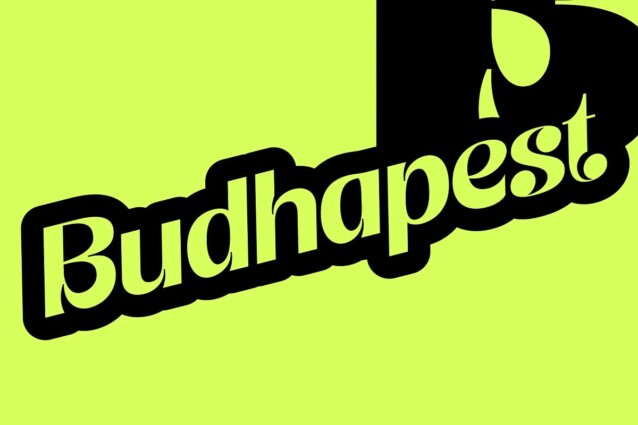
JT Modernism Font
JT Modernism Font is all about playful, bold vibes, with a dash of cuteness that’s hard to resist, thanks to its soft corners. Boasting a total of 18 weights, ranging from the delicately Thin to the boldly commanding Black, this font offers a versatile spectrum of options to suit any design project.
The unique charm of JT Modernism lies in its slanted design for each weight, adding a dynamic and energetic flair to your typographic creations. The slant is carefully crafted to enhance the overall visual impact of the font, making it stand out in the contemporary design landscape.